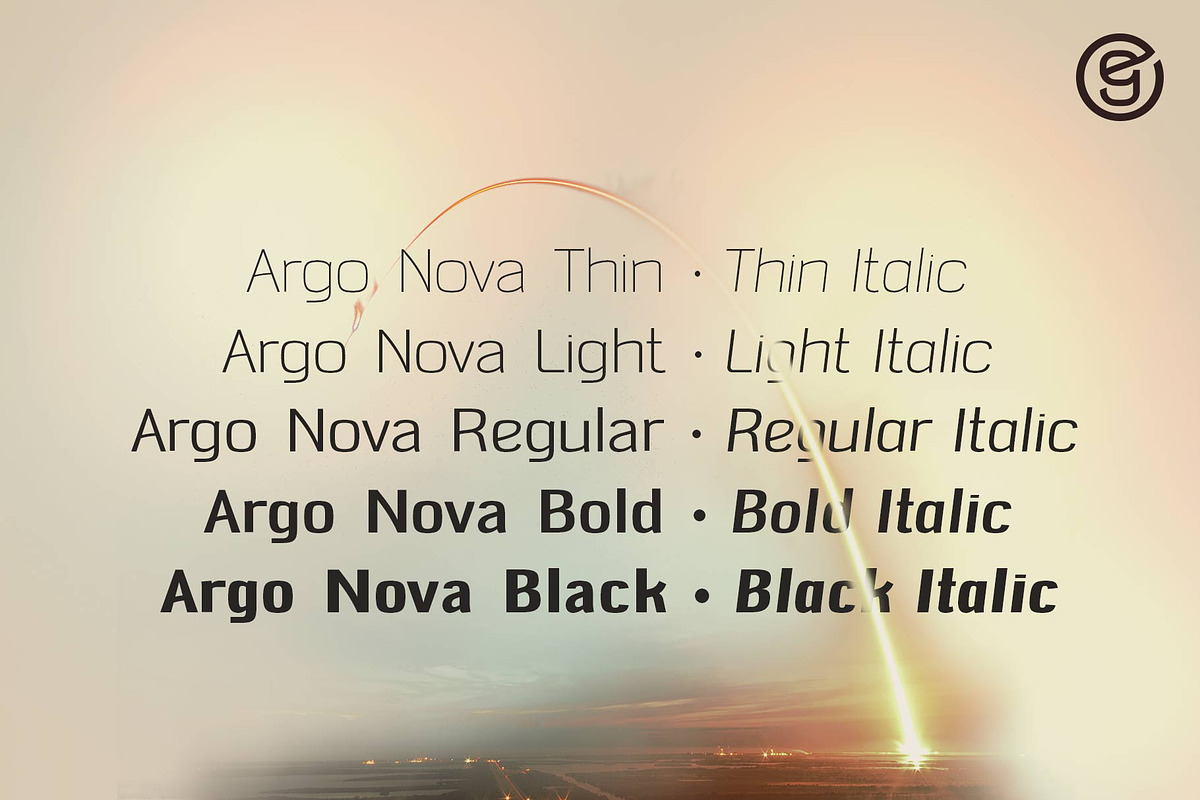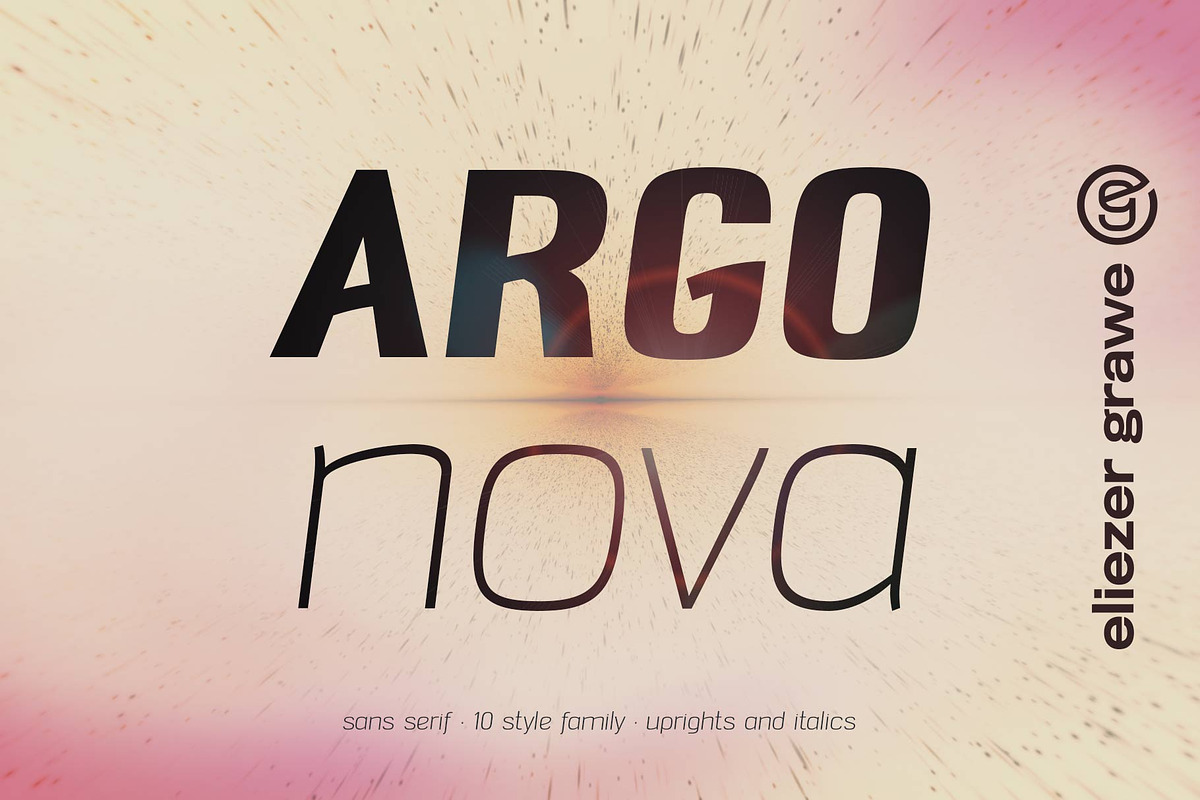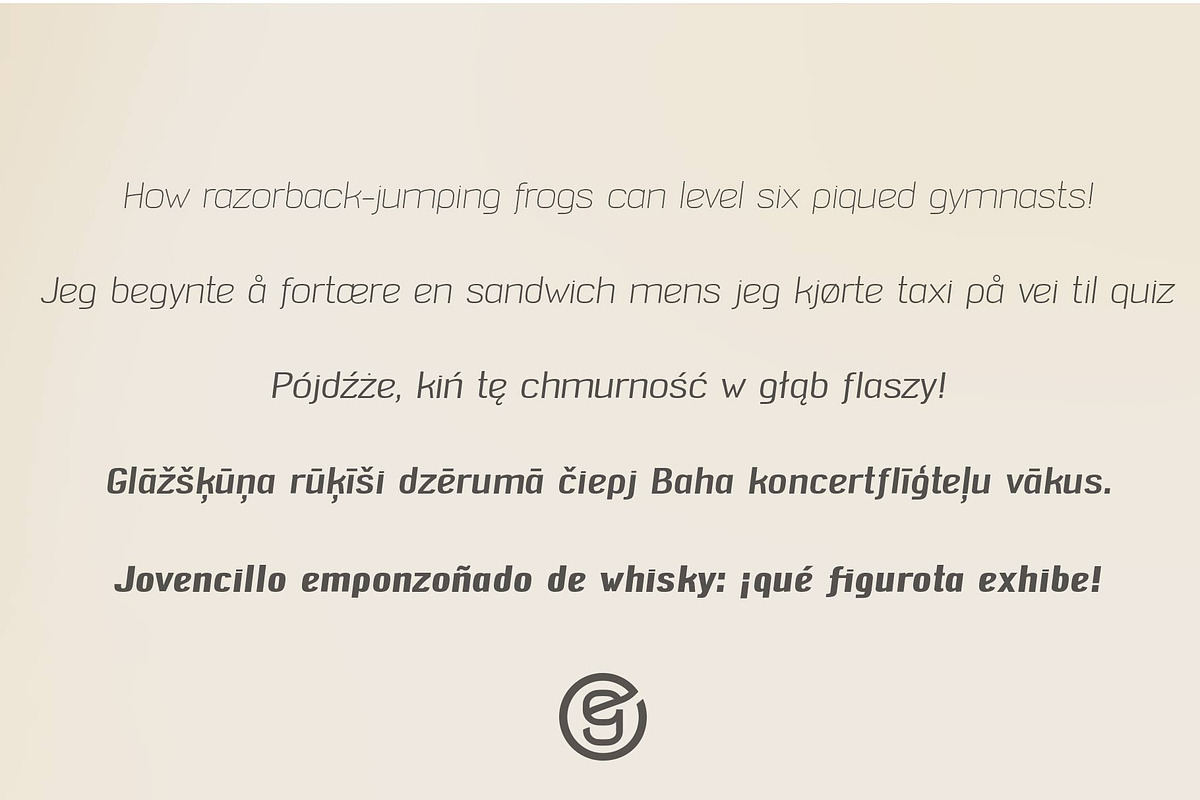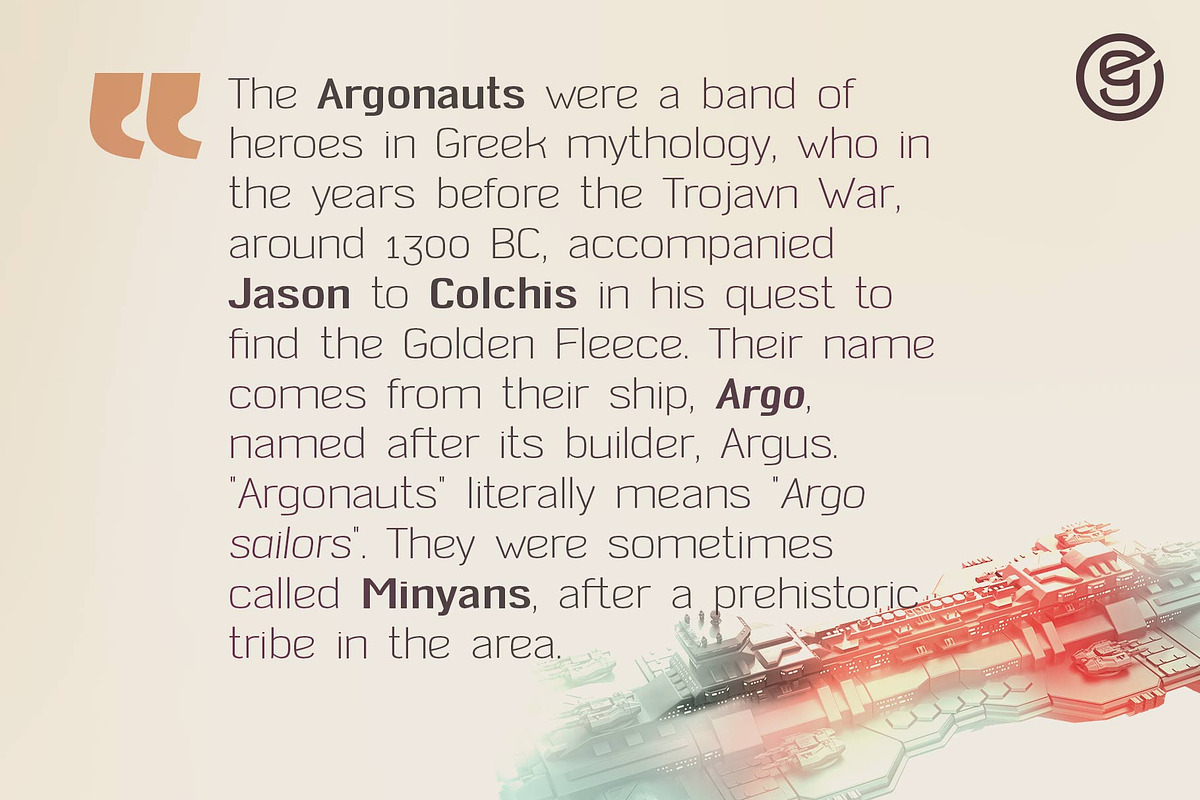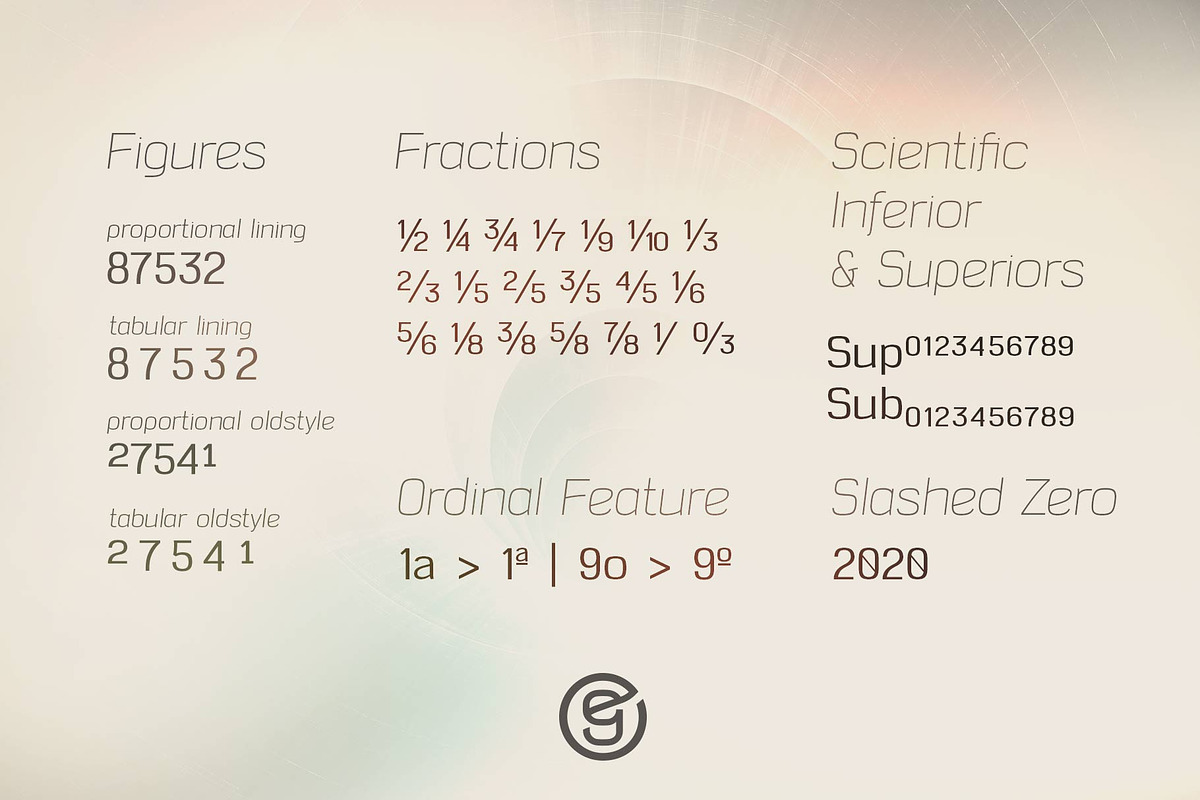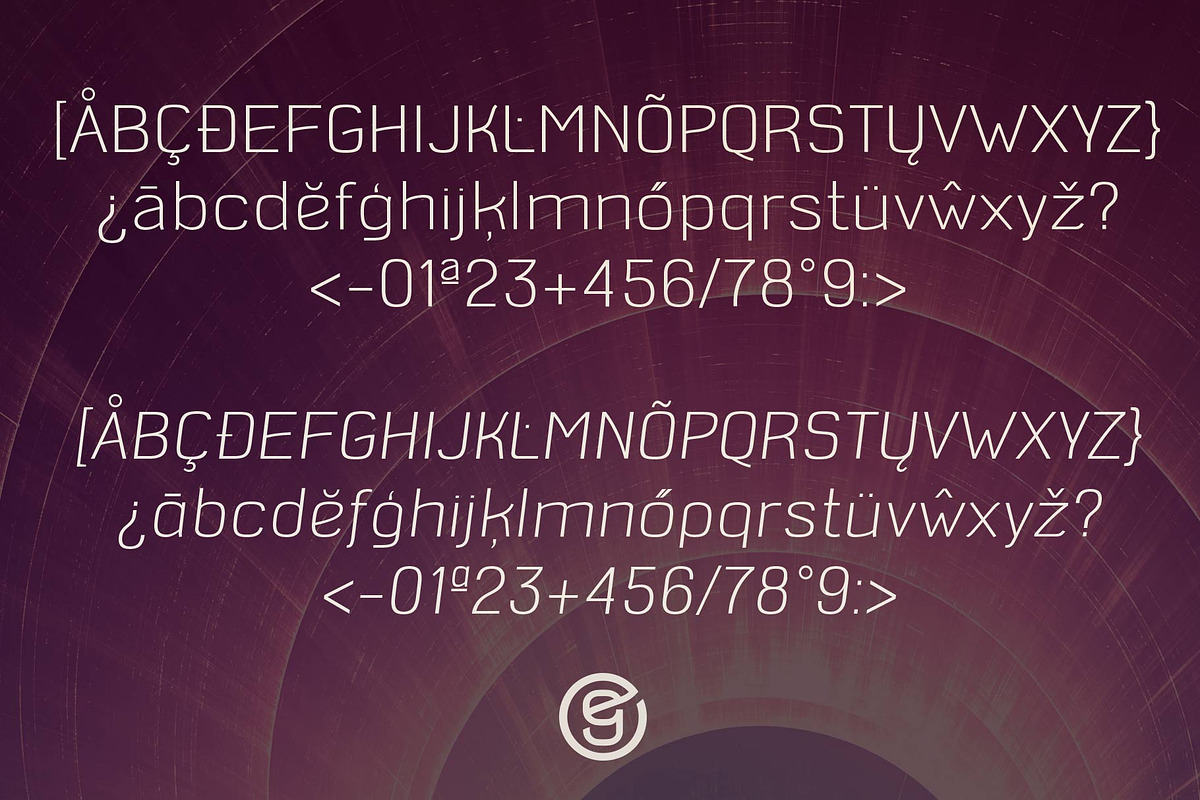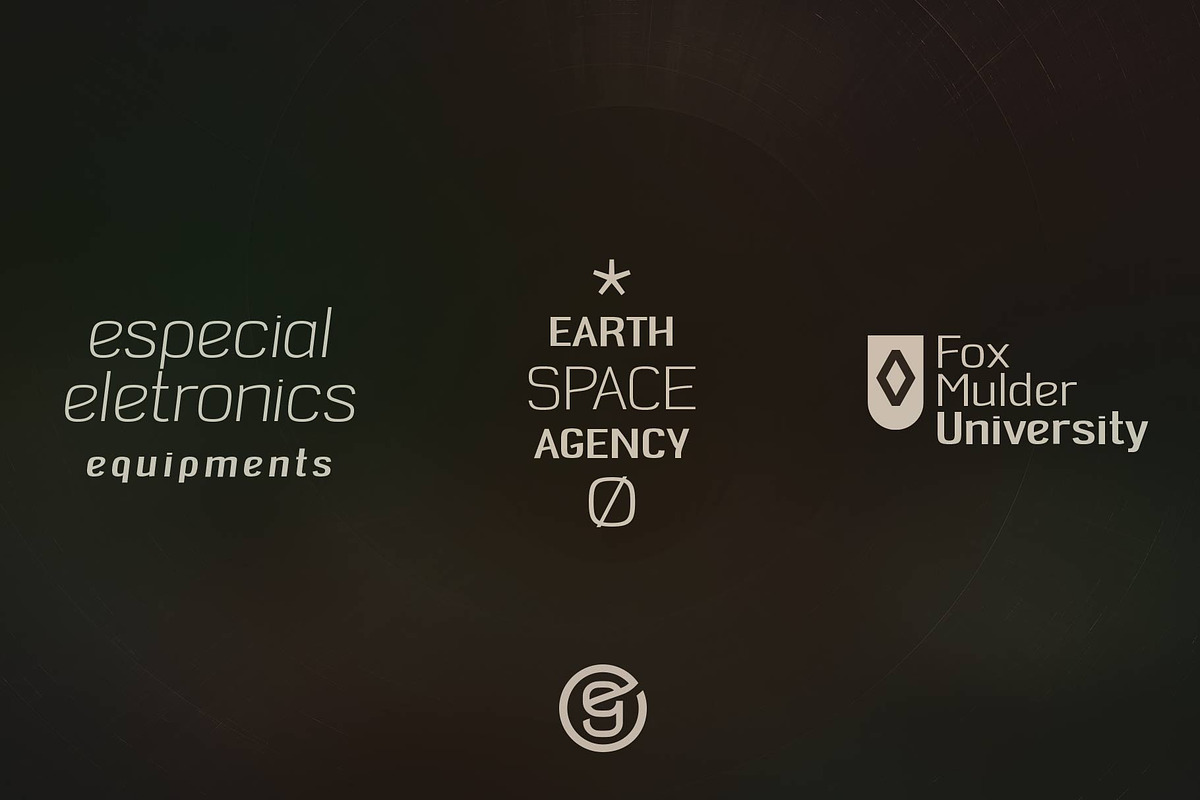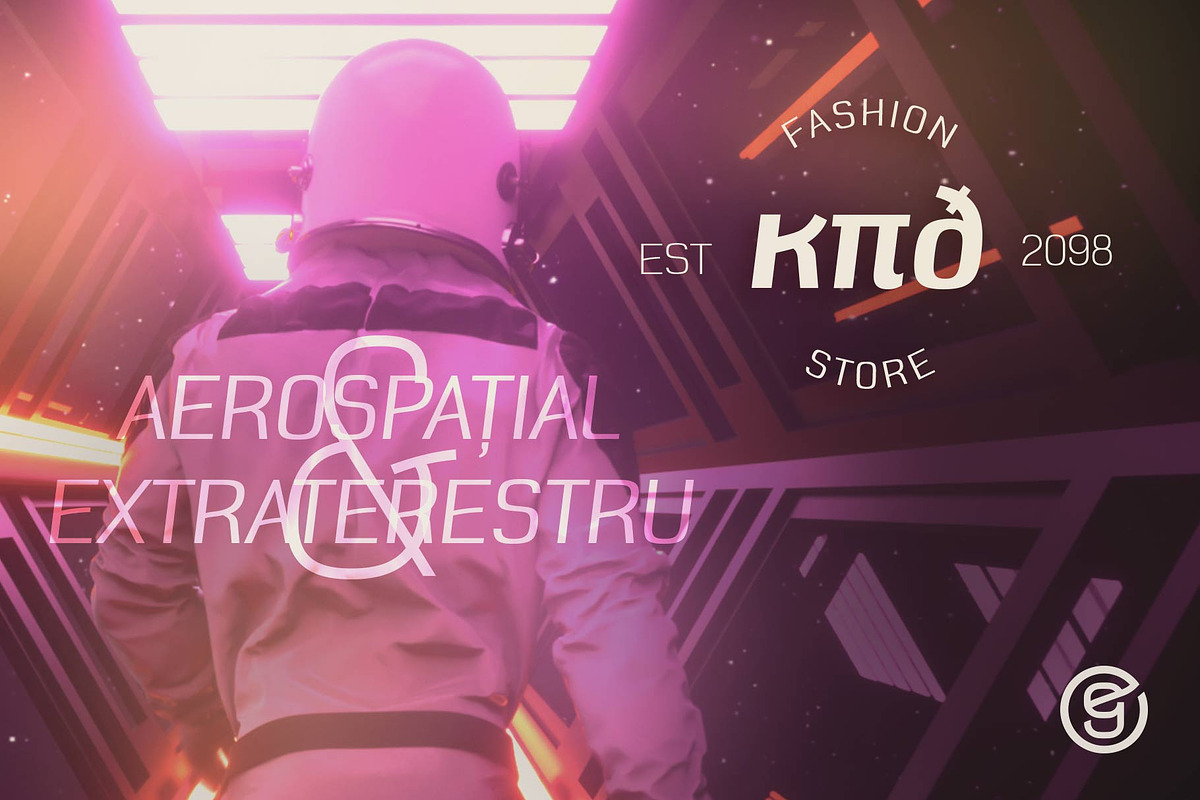
Argo Nova - Sans Serif Font
The Argo Nova font is an geometric sans serif font with a touch of humanistic feel, bringing a different look with curved vertical strokes and high contrast on thicker weights. Designed with OpenType features, it includes extended Latin support, fractions, tabular and old-style figures, ligatures and more. With no excess in mind, it came in 10 styles (5 uprights and is matching italics) and it is a font family ideal for text, branding, signage, editorial, print and web design creations. • 5 weights: Thin, Light, Regular, Bold and Black • Matching italics • Lining and old-style figures with proportional and tabular spacing • Standart Ligatures • Alternate characters for a, æ, g and ß • Fractions • Ordinals • Extended language support, designed following the Underware Latin Plus character set, with 534 glyphs, supporting 219 Latin based languages (see
- Designed with OpenType features, it includes extended Latin support, fractions, tabular and old-style figures, ligatures and more.
- • 5 weights: Thin, Light, Regular, Bold and Black • Matching italics • Lining and old-style figures with proportional and tabular spacing •